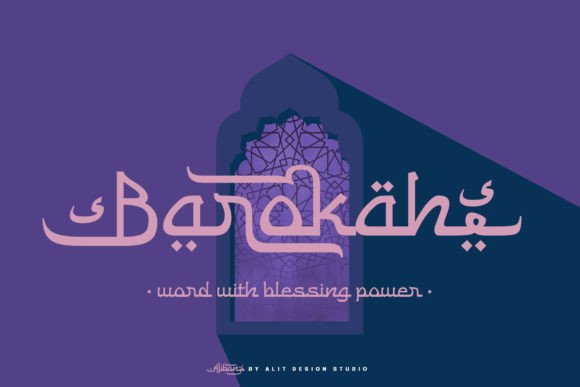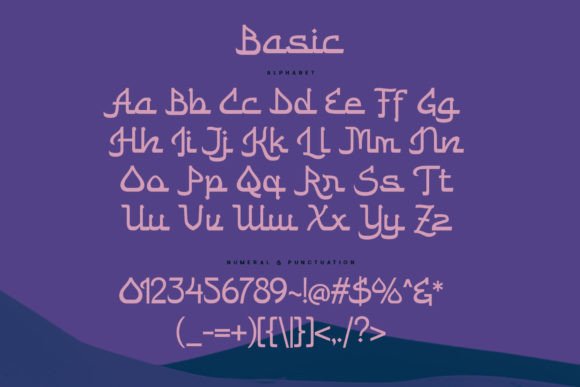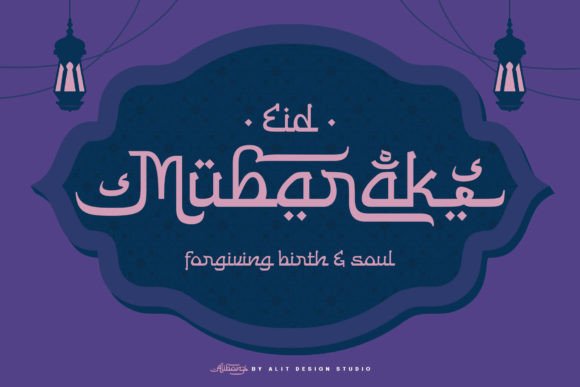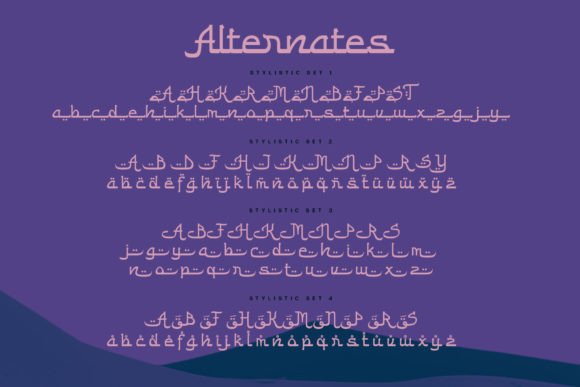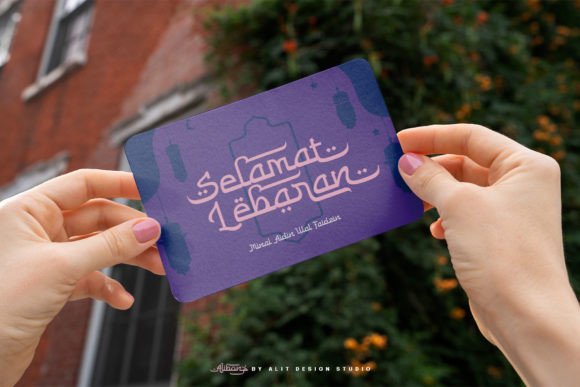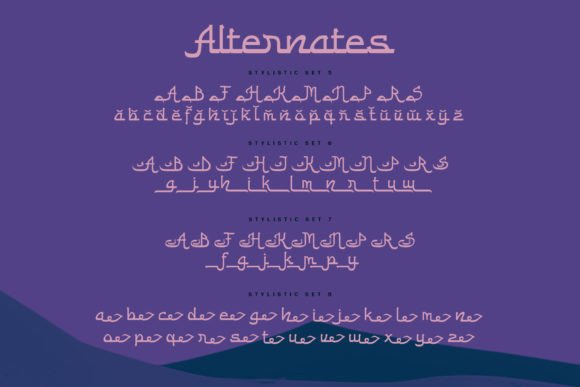
Introducing Alibon Arabic Font: Elevate Your Islamic Design Projects
Are you looking for a font that embodies the spirit of Ramadan and Islamic design? Look no further than Alibon Arabic Font, a stunning typeface that is sure to impress your audience and elevate your designs to the next level. In this article, we’ll dive into the features and benefits of Alibon Arabic Font, and explore how it can be used to create breathtaking designs for Ramadan promotions and other Islamic projects.
The Perfect Blend of Style and Spirituality
Alibon Arabic typeface is a masterpiece of font design, carefully crafted to evoke the spirit of Islamic art and architecture. Its intricate curves and lines are a testament to the rich cultural heritage of the Arabic language, making it an ideal choice for designers looking to create authentic and meaningful designs. Whether you’re working on a Ramadan promotion, a mosque brochure, or an Islamic art piece, Alibon Arabic Font is the perfect choice to add a touch of elegance and sophistication.
What Sets Alibon Arabic Font Apart?
So, what makes Alibon Arabic Font stand out from the rest? Here are just a few features that make it a must-have for designers:
- PUA Encoding: Alibon Arabic Font is PUA (Private Use Area) encoded, which means you can access all glyphs and swashes effortlessly. This makes it easy to use and customize the font to suit your design needs.
- Religious and Islamic Style: The font’s design is deeply rooted in Islamic art and architecture, making it perfect for Ramadan promotions and other Islamic design projects.
- High-Quality Design: Alibon Arabic Font is meticulously crafted to ensure that every detail is perfect, from the intricate curves to the precise lines.
Why Choose Alibon Arabic Font for Your Designs?
There are many reasons why Alibon Arabic Font is the go-to choice for designers looking to create stunning Islamic designs. Here are just a few:
- Elegance and Sophistication: Alibon Arabic Font adds a touch of elegance and sophistication to any design, making it perfect for high-end projects.
- Authenticity: The font’s design is deeply rooted in Islamic art and architecture, making it an authentic choice for designers looking to create meaningful designs.
- Versatility: Alibon Arabic Font can be used for a wide range of design projects, from Ramadan promotions to mosque brochures, and even Islamic art pieces.
Tips for Using Alibon Arabic Font
Here are a few tips for using Alibon Arabic Font to create stunning designs:
- Experiment with Different Sizes: Alibon Arabic Font looks great in large and small sizes, so don’t be afraid to experiment with different sizes to find the perfect fit for your design.
- Pair it with Other Fonts: Alibon Arabic Font pairs well with other fonts, so try combining it with a sans-serif font for a modern look or a script font for a more elegant feel.
- Use it for Headlines and Titles: Alibon Arabic Font is perfect for headlines and titles, where its intricate curves and lines can really shine.
In conclusion, Alibon Arabic Font is a stunning font product that is perfect for designers looking to create breathtaking Islamic designs. Its carefully crafted design, PUA encoding, and religious and Islamic style make it an ideal choice for Ramadan promotions and other Islamic design projects. Whether you’re a professional designer or a crafty DIY enthusiast, Alibon Arabic Font is sure to elevate your designs to the next level.